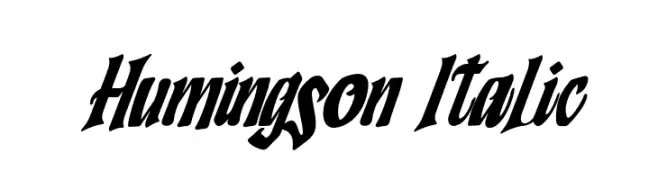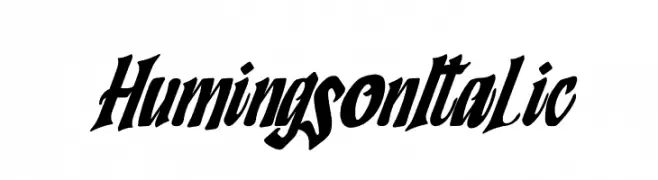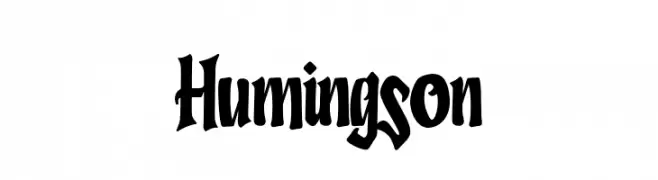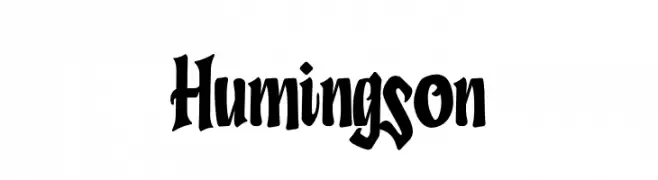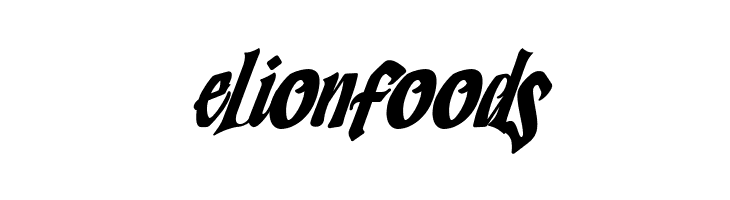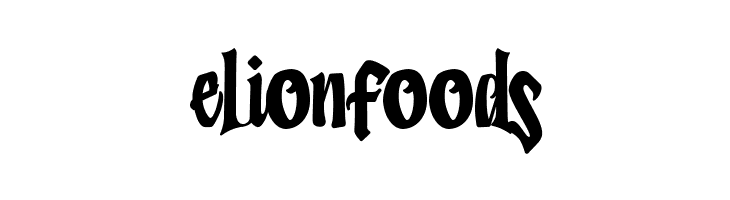
A bold, gothic-style font with intricate detailing and historical flair.
An ornate blackletter font with a medieval aesthetic.
A bold, Gothic-inspired font with sharp, angular edges and a modern twist.
A bold, dramatic Blackletter-style font with sharp, angular lines.
A bold, italic font with high contrast and dynamic, angular forms.
A bold, italicized font with high contrast and dynamic style.